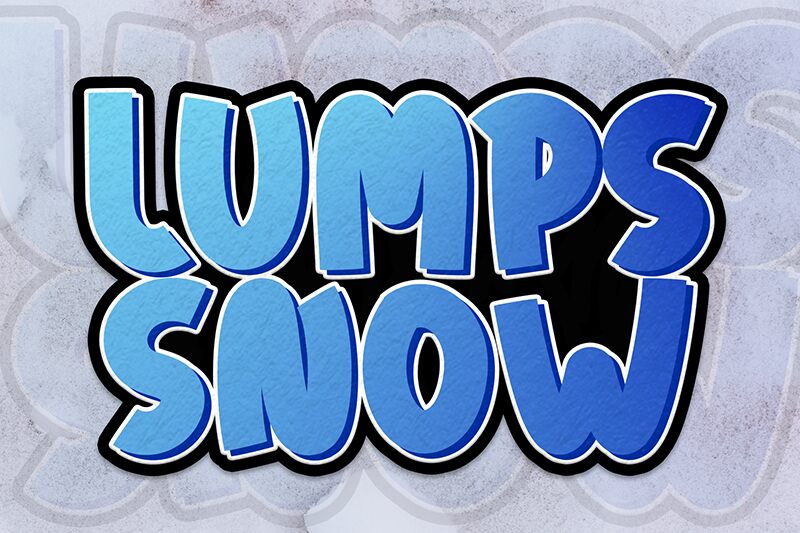
Lumps Snow
Lumps Snow font by Andi Moz is a bold display typeface with a casual aesthetic that balances vintage influence and modern appeal. Cheerful rounded letters immediately attract attention and give off a whimsical tone. Curved strokes, various elements, and playful shapes are what ultimately make the cartoon font complete.
Use this free font for holiday season visuals from invitations to social media posts. Design cheerful headlines, write banners and titles appropriate for the occasion, or visualize custom playful branding projects for children. Marketing materials inside magazines can also benefit greatly from Lumps Snow’s aesthetics.